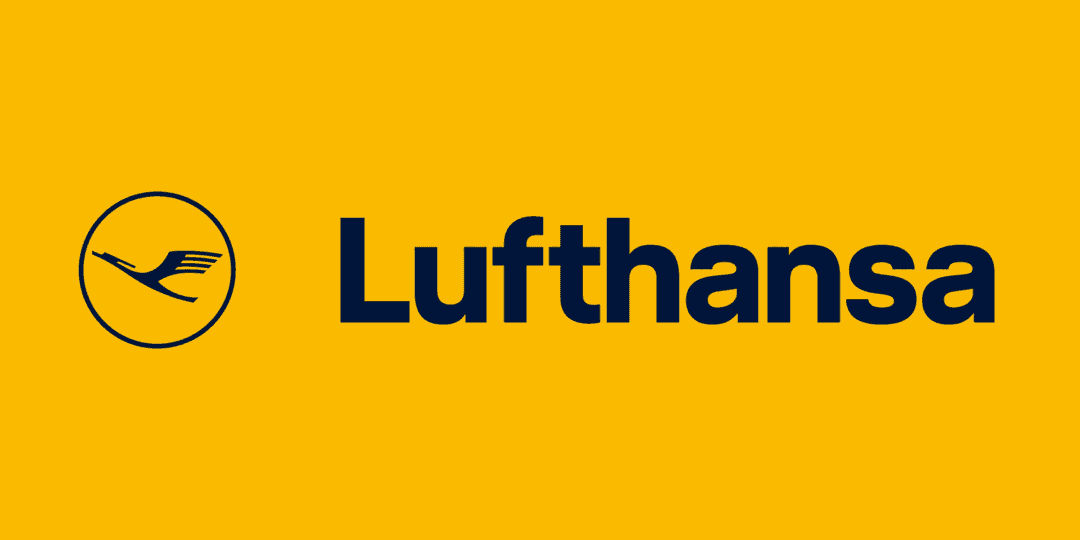
Helvetica
Helvetica is one of the most popular typefaces of all time. It has been extremely popular for logos and big brands since the 70s. It was designed by Max Miedinger in 1957 for the Haas foundry of Switzerland (the name is derived from Helvetia, the Latin name for Switzerland). The design is influenced by Akzidenz-Grotesk.